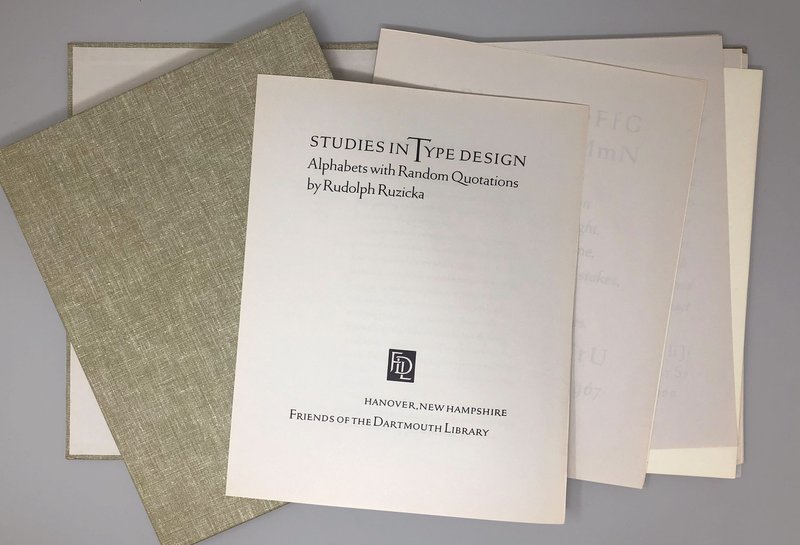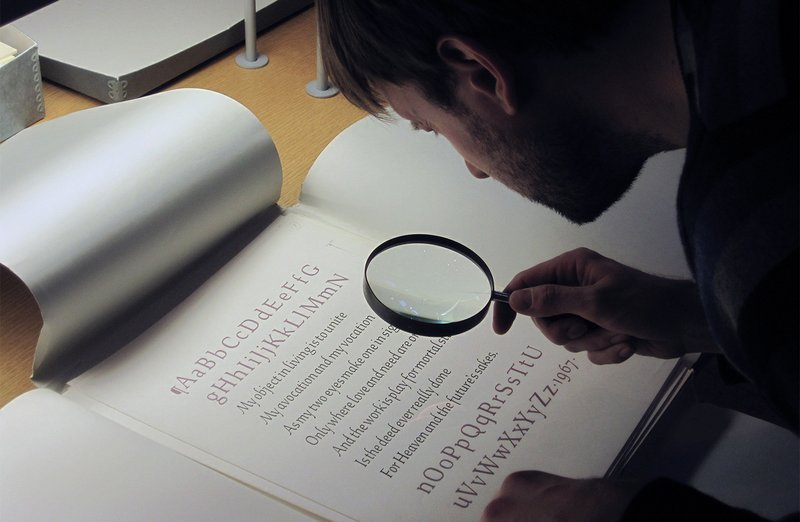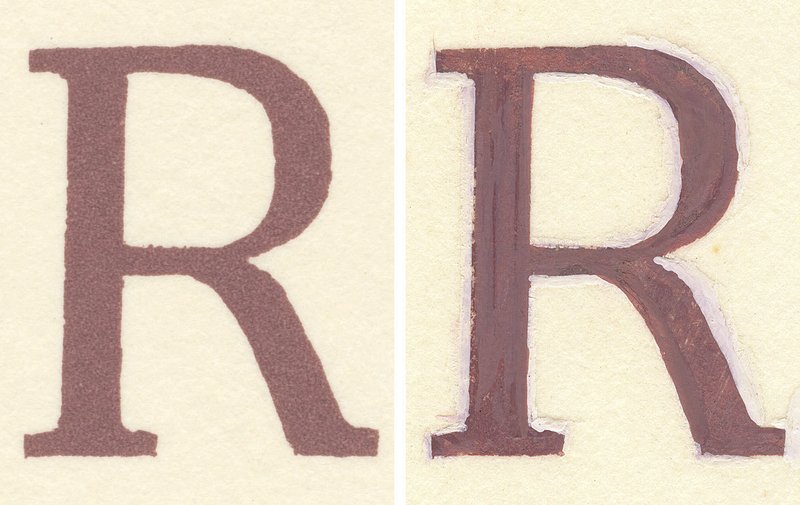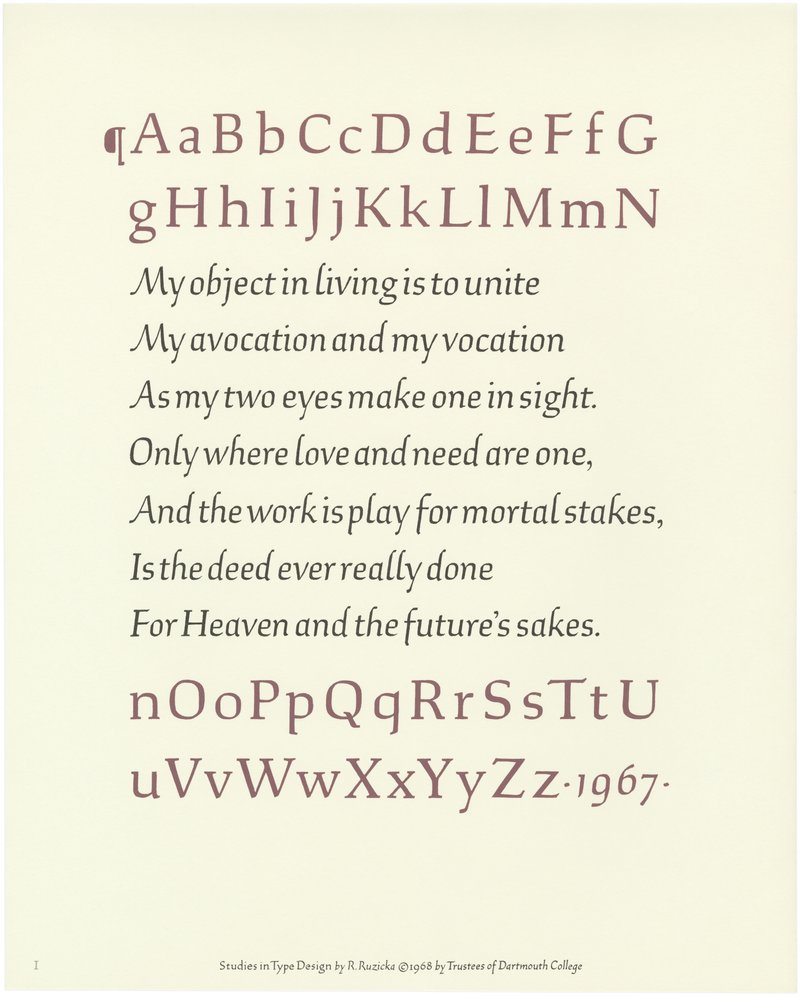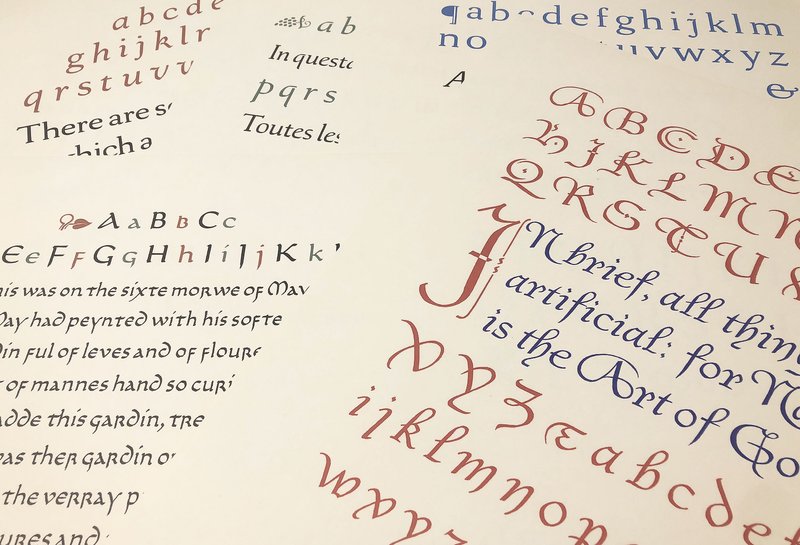
Making Study: New clothing for the twenty-six leaden soldiers
If typographic spirit guides exist, I met mine as an eager undergraduate in 2000, when I first encountered the work of Rudolph Ruzicka. He has been a guiding voice in my work designing typefaces ever since.
Born in 1883 in what is now the Czech Republic, Ruzicka immigrated to Chicago with his family when he was 11 and left school to work at 14. After moving to New York alone at 20, he achieved quick success in wood-engraving, illustration, and book design. A self-made scholar, he possessed a deep understanding of the history of typography and a keen artistic eye.
Ruzicka was 54 when he submitted his first type design proposals to Mergenthaler Linotype, ultimately yielding the workhorse serif typefaces Fairfield and Primer. Both were immensely successful in the 1940s–60s, particularly for use in books. Today they have fallen out of favor, possibly due to the shortcomings of their digital versions.
My love of Ruzicka’s designs, which I feel deserve more attention than they get, drove me to complete one of his typefaces which had lain dormant for fifty years: the new/old typeface Study.
Study, 2018
My avocation and my vocation
Although Ruzicka fully completed only two type designs, he never stopped coming up with new ideas. In 1968, he published a collection of his unrealized alphabet concepts in Studies in Type Design, a loose portfolio containing ten printed plates of hypothetical type specimens rendered by hand. The type styles range broadly—a practical text serif, a stately spurred sans, an eccentric Civilité, and more. Ruzicka explained in his introduction:
The temptation to clothe the twenty-six leaden soldiers in new array is irresistible. This is the only apology offered for suggesting still further additions to the seemingly infinite variety of existent typefaces.
It was this portfolio that stopped me in my tracks at the Rhode Island School of Design library my senior year—why had I never heard of this designer?
Studies in Type Design: Alphabets with Random Quotations (Friends of the Dartmouth Library, Hanover, New Hampshire, 1968)
When Studies was published, Ruzicka was 85 years old and in failing health. Perhaps he saw the portfolio as a final resting place for these alphabets. But he acknowledged that there was work yet to be done, which I read as an invitation for their further development. Continuing the introduction, he wrote:
More serious would be the technical problems involved in translating the designs into type: the mechanical problems of fitting and of kerns, vital in metal though perhaps immaterial in the rapidly developing photoelectronic processes. For one concerned with legibility, there would remain the task of relating stem, hairline, counter and serif to each other and to the weight of the larger mass—it is a far cry from design to type face.
These alphabets were clearly proposals for typefaces, not simply lettering, so why had they never become fonts for metal, photo, or digital typesetting? Were they simply waiting for someone to accept the invitation? I saw an opportunity to extend the legacy of a neglected virtuoso. Despite some doubts as to whether I was equal to the task, in 2009 I decided to pick up where he left off.
Plate 1 of Studies in Type Design, with text from Robert Frost’s “Two Tramps in Mudtime”
I started with the first plate. Its tactile, sculptural lines show the confident hand of a master engraver. Taut curves wrap around angular counterforms, in a distinctly Czech combination of calligraphic and typographic forms. Amid the alphabet’s restrained elegance, Ruzicka’s idiosyncratic proclivities peek through: the notched A crossbar, the upward-gazing E, the “hockey stick” y, the k reaching out to the right, the proudly poised S. The characters are alive with humanity, dancing along the baseline. For me, it was love at first sight.
A far cry from design to type face
Despite his masterful lettering skills and extensive historical knowledge, Ruzicka had seen firsthand that the “technical problems involved in translating the designs into type” were beyond his expertise. Working decades earlier on Fairfield and Primer, he had submitted letterforms to the Linotype team as isolated paintings, and they had drafted technical diagrams to produce machine matrices.
To achieve elegance, consistency, and readability, his designs had gone through a rigorous process of trial and error, with many rounds of revision. Also, his drawings had been adapted to the peculiar constraints of pantographic engraving and hot-metal typecasting. Throughout, Ruzicka and his type director C.H. Griffith had exchanged letters, drawings, and progressive printed proofs. (Ruzicka's friend and mentor W.A. Dwiggins detailed this method of design and production for him in “WAD to RR”.)